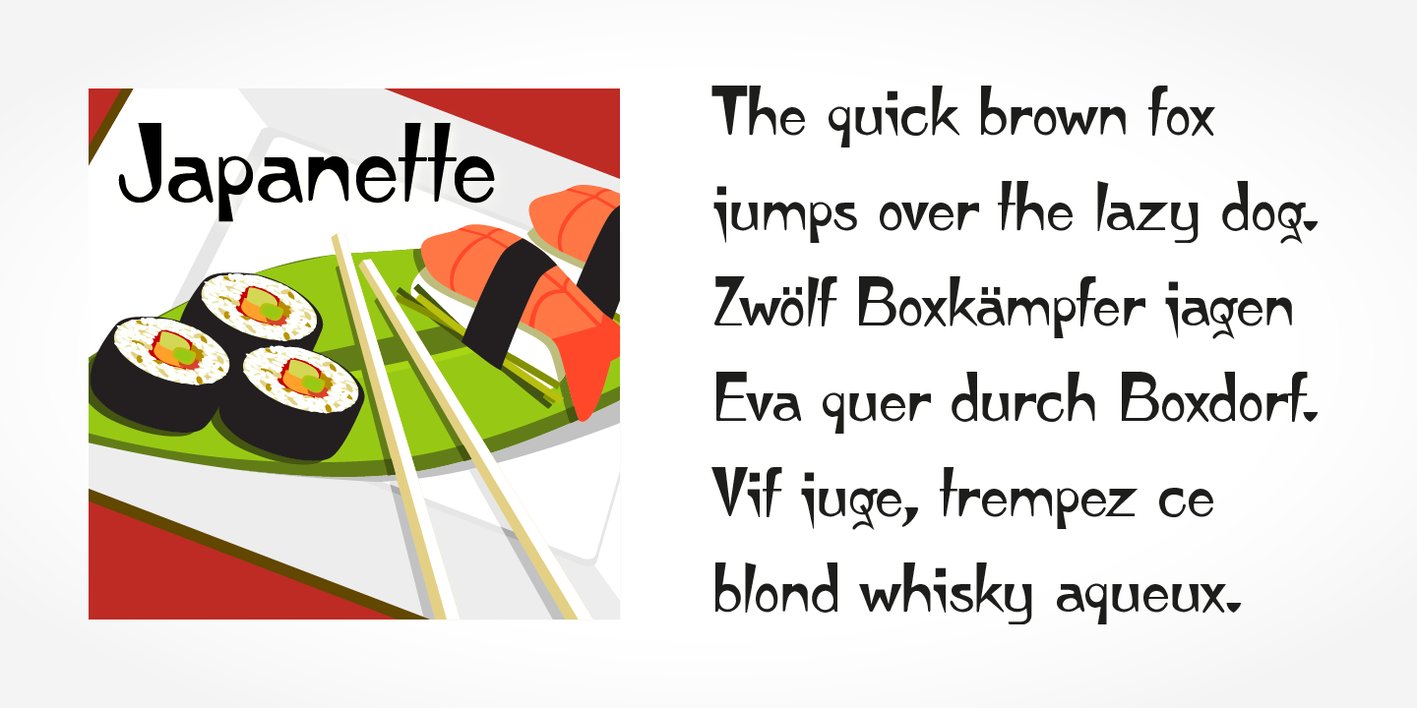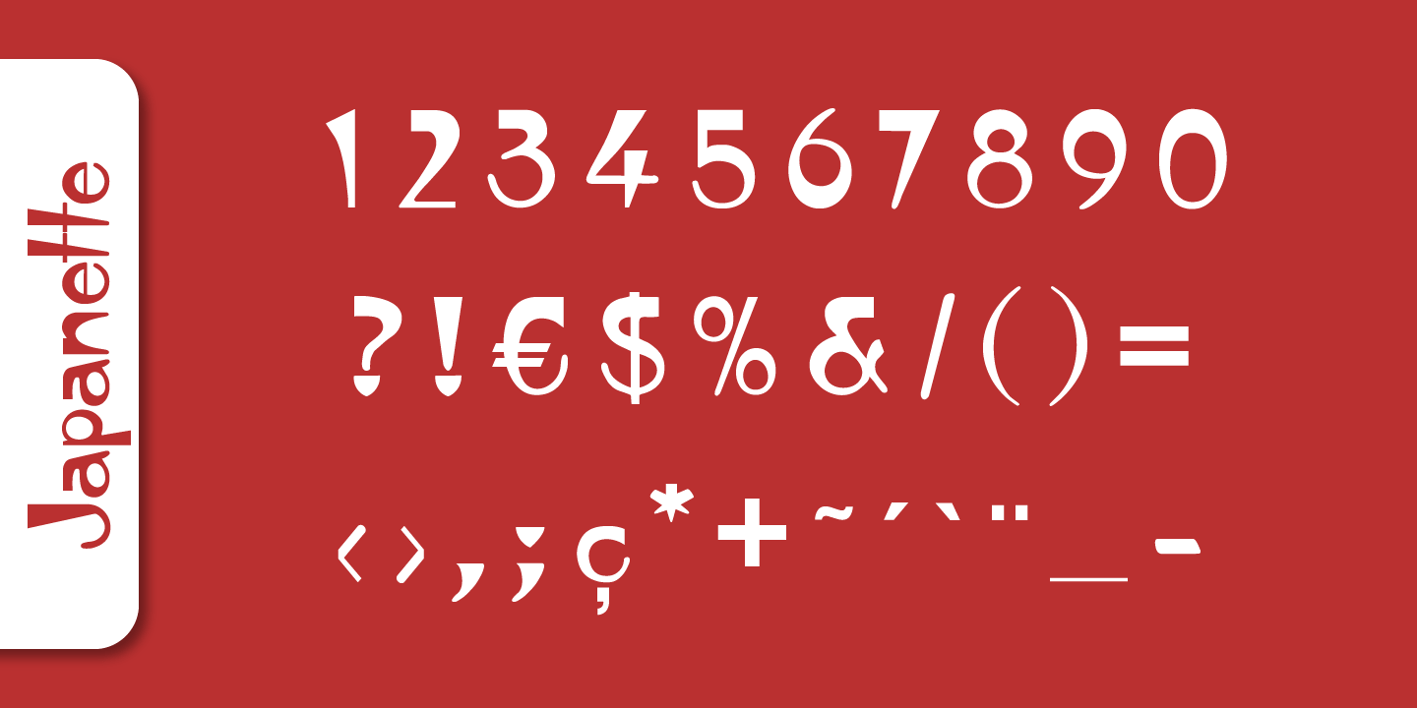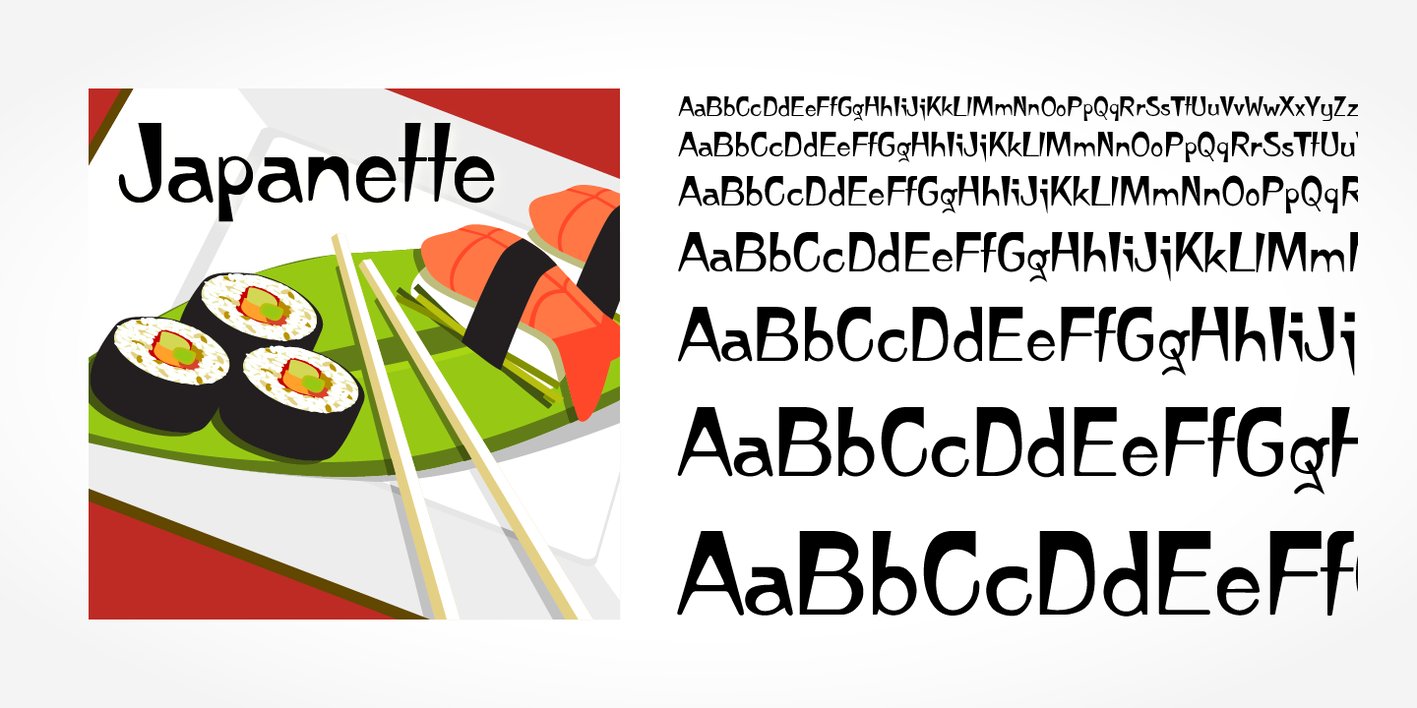
Japanette Font
Japanette Font is perfect for Japanese restaurant branding, sushi bar signage, anime convention graphics, manga-inspired designs, Japanese cultural events, zen spa materials, martial arts studio marketing, origami workshop materials, tea ceremony invitations, Asian fusion cuisine menus, Japanese garden signage, and creative projects that require elegant, Japanese-inspired typography with cultural authenticity and modern appeal.
What makes Japanette Font so exciting is its harmonious blend of Japanese aesthetic principles and contemporary typography that captures the essence of Japanese design philosophy with its emphasis on balance, simplicity, and elegant minimalism. This typeface features clean letterforms with subtle Japanese-inspired characteristics and refined proportions that create an immediate sense of tranquility, cultural sophistication, and artistic harmony. The font's zen-like character and cultural authenticity make it perfect for brands and projects that want to communicate mindfulness, quality, and the timeless appeal of Japanese design sensibilities.
Japanette Font typically comes in multiple weights and styles including Light, Regular, Medium, and Bold variations. Many versions also include Japanese-inspired ornaments, cultural symbols, and decorative elements that enhance the font's authentic Asian functionality and provide designers with comprehensive tools for creating culturally respectful, Japan-themed typography compositions that honor traditional aesthetics.
Embrace Japanese elegance with the cultural sophistication of Japanette Font Free Download. This refined typeface brings together traditional Japanese design principles with contemporary functionality, making it an essential tool for designers who need to create memorable, culturally-inspired communications that resonate with audiences seeking authentic Japanese aesthetic and mindful design. The font's harmonious character ensures your projects will convey cultural respect and artistic refinement.
Whether you're designing Japanese dining experiences, cultural exhibition materials, or zen-inspired branding, Japanette Font delivers exceptional cultural authenticity and aesthetic harmony that connects with audiences who appreciate Japanese culture and minimalist design philosophy. Its balanced, serene appearance works beautifully with traditional Japanese color palettes and cultural imagery, creating designs that feel both authentic and contemporary.
The thoughtfully crafted letterforms of Japanette Font demonstrate deep respect for Japanese design traditions and cultural sensitivity. Each character has been designed to honor the principles of Japanese aesthetics while maintaining excellent readability and contemporary functionality, making it particularly valuable for projects that need to bridge cultural authenticity with modern professional requirements and global accessibility.